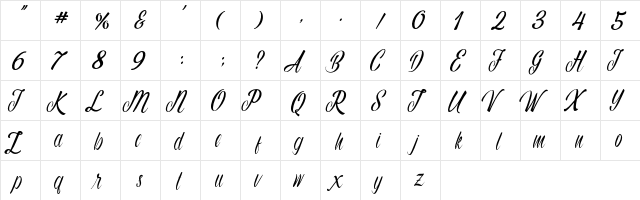
Autumn Flower Regular
Design Context for Autumn Flower Typeface
Autumn Flower is a composed and adaptable typeface that performs quietly and consistently across a wide range of design contexts.
Pro Tip: Pair Autumn Flower with a font of contrasting weight or personality to build a more expressive typographic hierarchy.